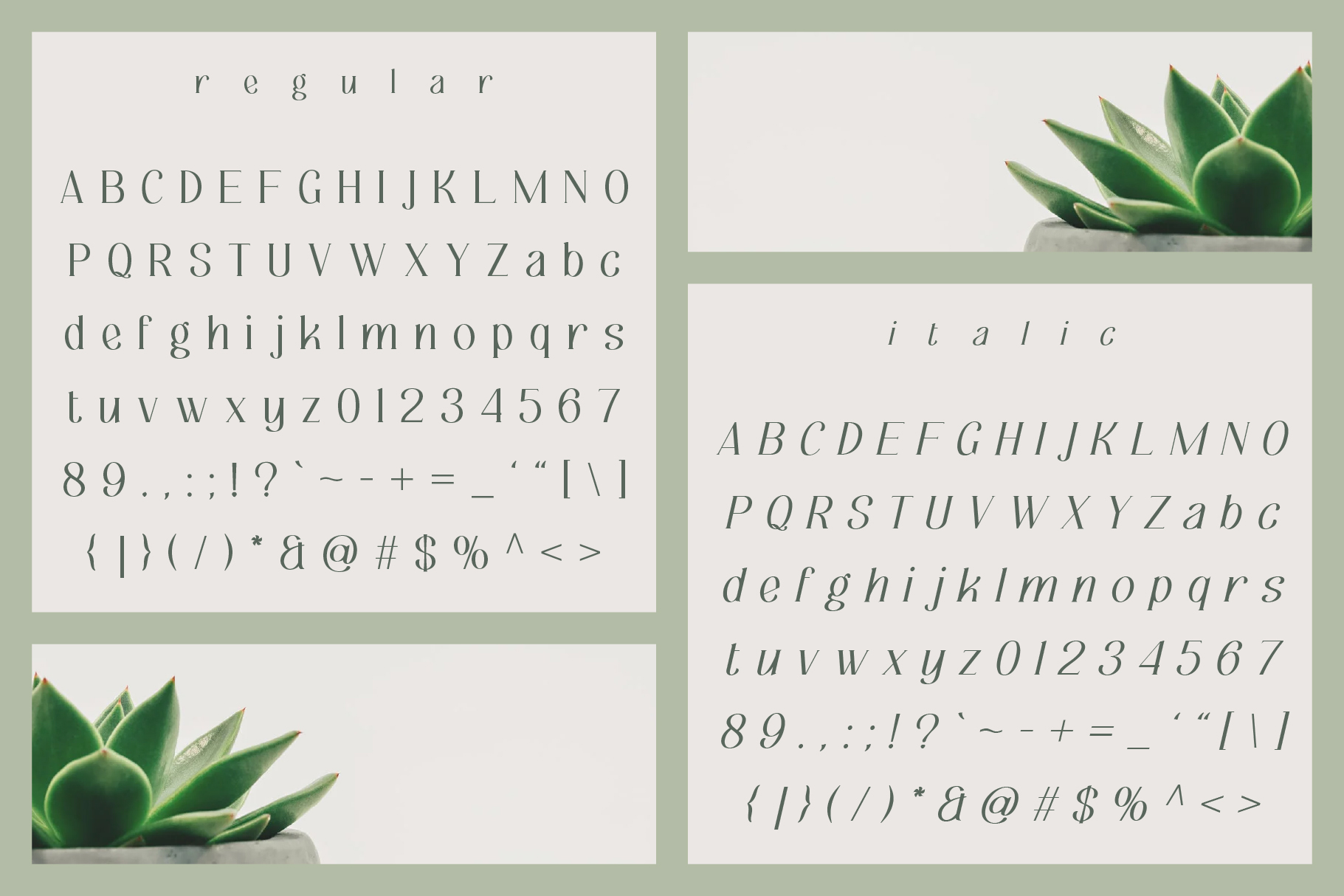
With its sleek and thin design, Nur Laela is the perfect sans serif font for those looking to infuse their designs with sophistication. Its minimalistic beauty makes it ideal for projects like wedding invitations, luxury magazines, beauty packaging, and chic branding. The thin lines and graceful curves give Nur Laela a modern yet timeless look, making it the ultimate choice for high-end designs.
This font comes with uppercase and lowercase letters, numbers, basic punctuation, and italicized characters for even more creative flexibility. Available in OTF, TTF, and WOFF formats, Nur Laela works flawlessly for both print and digital applications, ensuring your designs stand out with elegance.